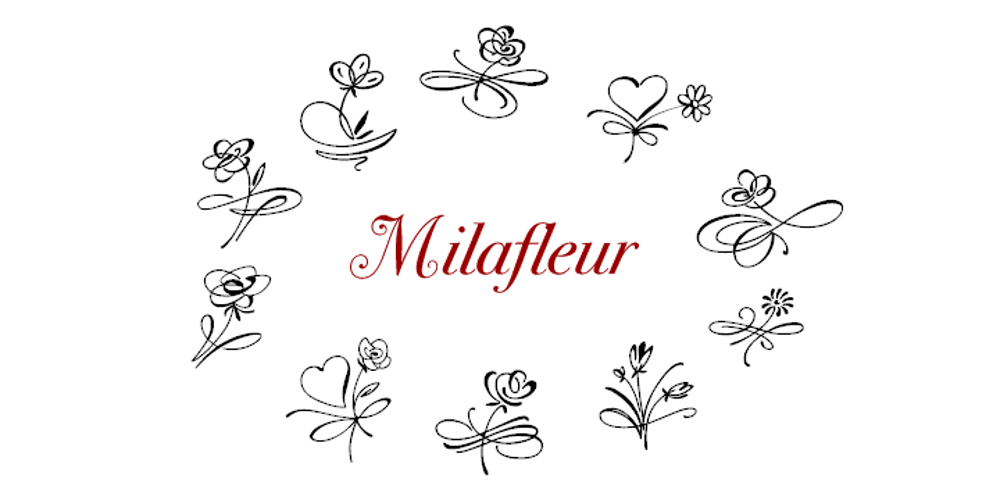
Milafleur Font Family was designed by published by ParaType. Milafleur contains 1 styles and family package options. Milafleur presents the second member in the series of pictorial fonts with calligraphic miniatures by Lyudmila Mikhailova. The first font of the series, Milanette, was released one month earlier. Milafleur contains more than 60 pictures — mostly flowers which define the origin of its name. In contrast to Milanette the pictures in Milafleur are less abstract and thus can be used as small illustrations in greeting texts, postcards, intimate notes, diaries and even in Christmas cards because some of the pictures show strobiles instead of flowers and coniferous branches instead of leaves. Released by ParaType in 2011.